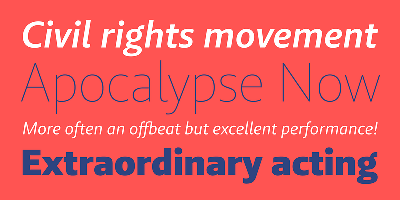
Muffet Font Free Download
Muffet Font is perfect for bakery branding, homestyle café signage, comfort food restaurants, children's book illustrations, cozy tea shops, artisan muffin packaging, family-friendly establishments, and wholesome lifestyle brands where warmth, comfort, and homemade charm are essential.
What makes Muffet Font exciting is its delightfully cozy character that perfectly captures the comforting warmth and homestyle appeal of freshly baked goods and neighborhood gathering places. This font features soft, rounded letterforms with gentle curves and welcoming proportions that mirror the satisfying comfort of warm muffins and the nurturing atmosphere of community bakeries. Its inviting presence instantly communicates homemade quality, family traditions, and heartwarming satisfaction that resonates with families, comfort food lovers, and anyone seeking authentic neighborhood charm and homestyle hospitality.
Muffet Font family includes light, regular, medium, and bold weights with matching italic styles, plus bakery-inspired decorative elements like muffin shapes, kitchen utensils, homestyle ornaments, and cozy flourishes that enhance the comfortable atmosphere of any bakery-focused design project.
Muffet Font Free Download represents an invaluable resource for designers creating brand experiences in the artisanal bakery, comfort food, and family hospitality industries. This typeface excels in markets where homestyle authenticity and family appeal directly influence customer loyalty, repeat visits, and word-of-mouth recommendations among comfort-seeking consumers. Local bakery owners and family restaurant operators particularly appreciate how Muffet Font instantly communicates homemade quality while maintaining excellent readability across all comfort food communications from menu boards to product packaging. The font's cozy aesthetic makes it ideal for neighborhood cafés, children's activity centers, and family entertainment venues where creating warm, welcoming environments is crucial for building community connections and customer devotion. Its versatile design adapts seamlessly from large storefront displays to small recipe cards, maintaining consistent comfort while preserving homestyle authenticity. Whether you're designing for artisan bakeries, family restaurants, or community gathering spaces, Muffet Font delivers the perfect combination of homemade warmth and neighborhood charm that helps comfort food businesses create memorable experiences and build lasting relationships with customers who value family traditions, homestyle cooking, and the simple pleasure of freshly baked comfort foods that bring communities together.